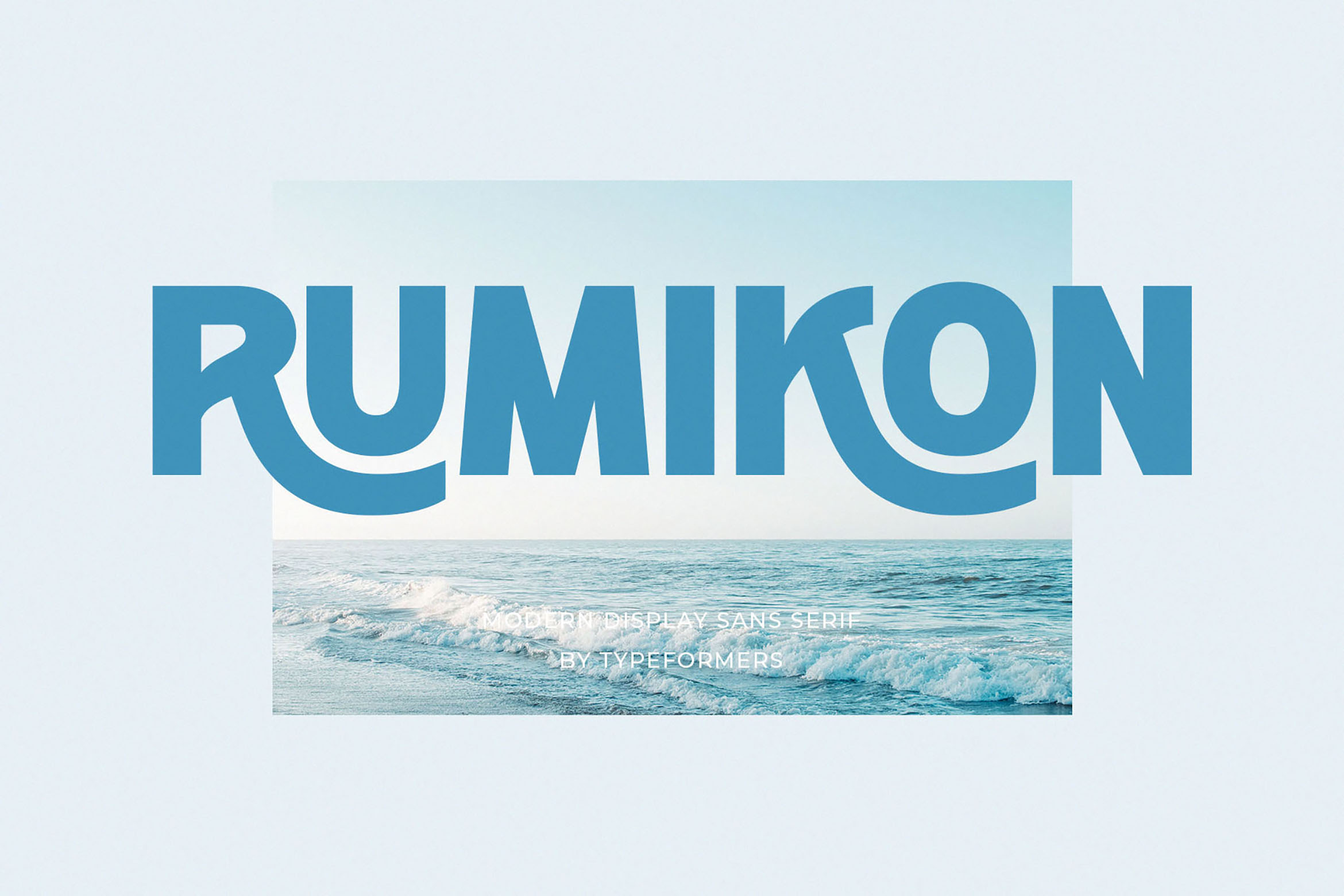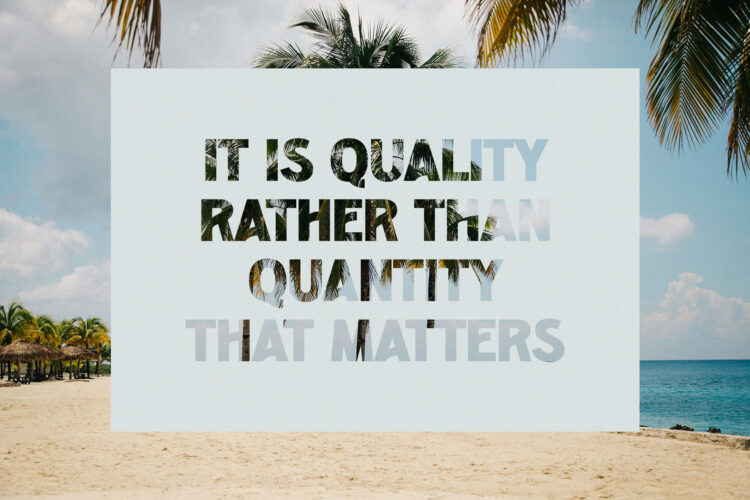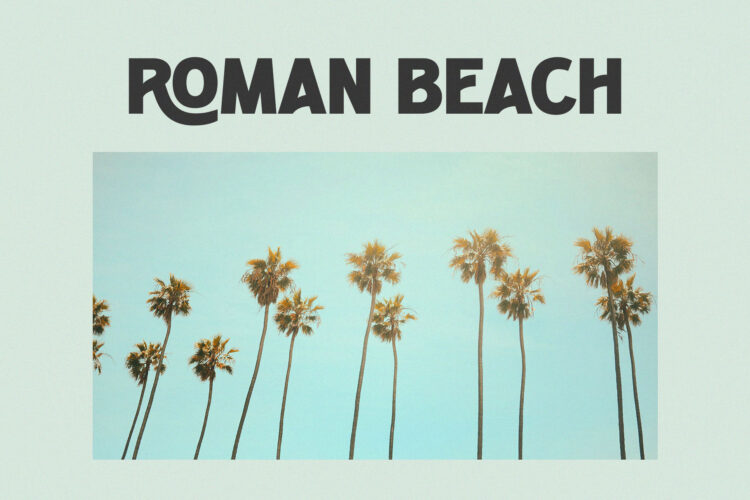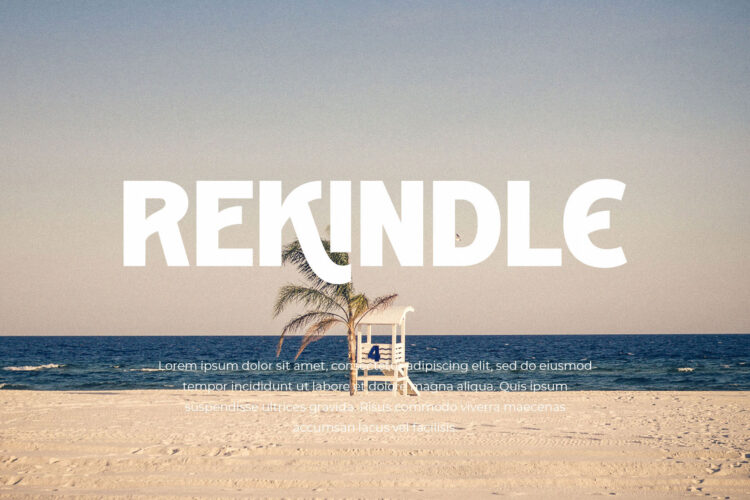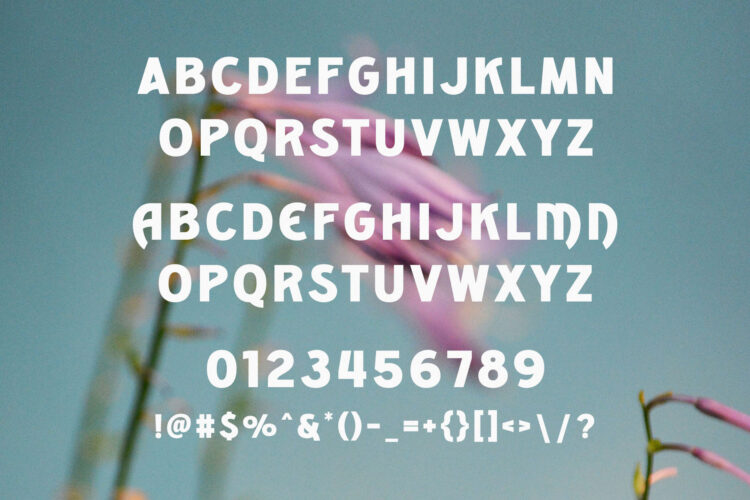
Introducing Rumikon – Modern Display Sans Serif.
Rumikon is a modern and simple font, best used as a display for headings, logos, branding, magazines, product packaging and invitations.
Rumikon – Modern Display Sans Serif